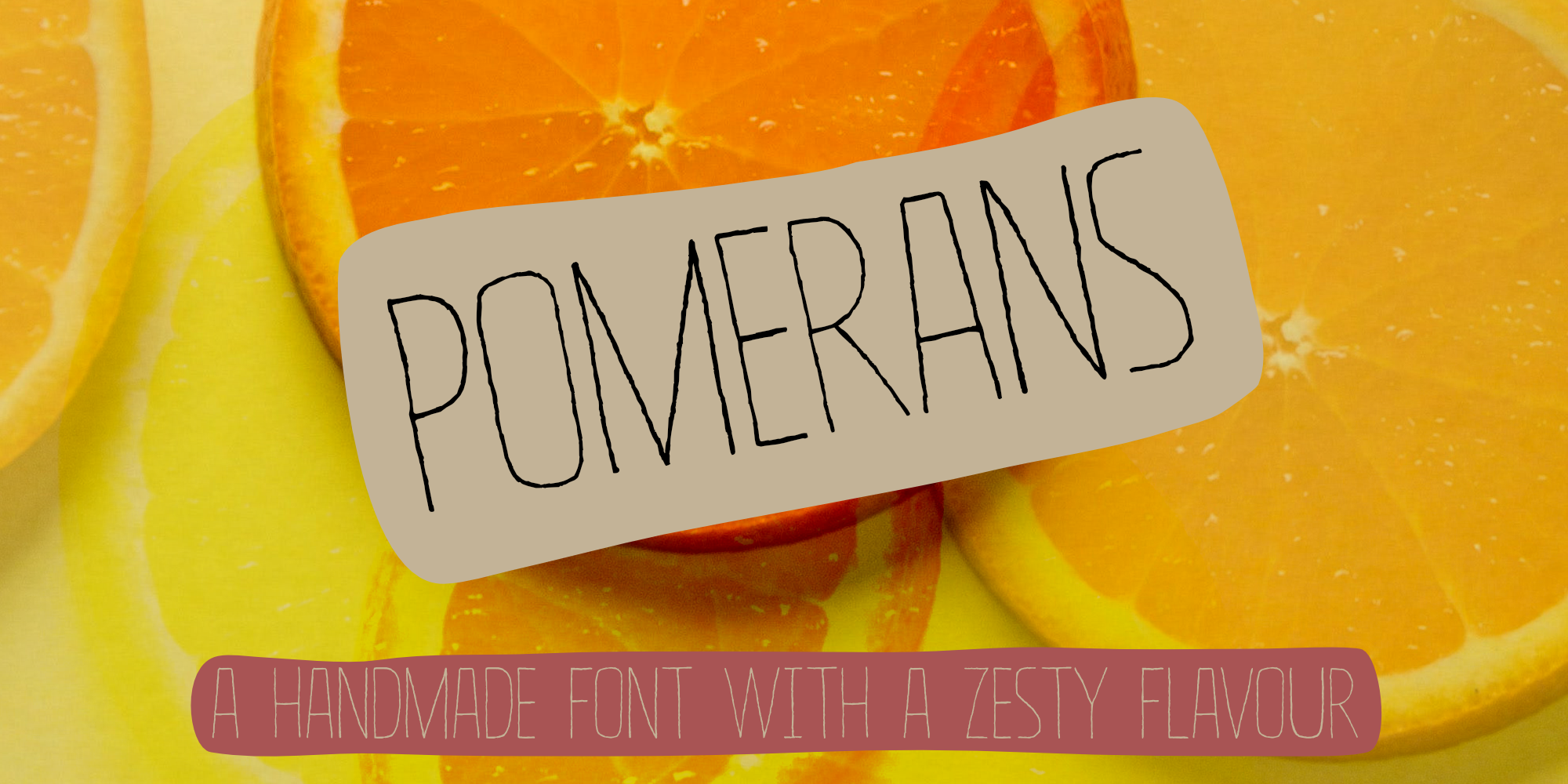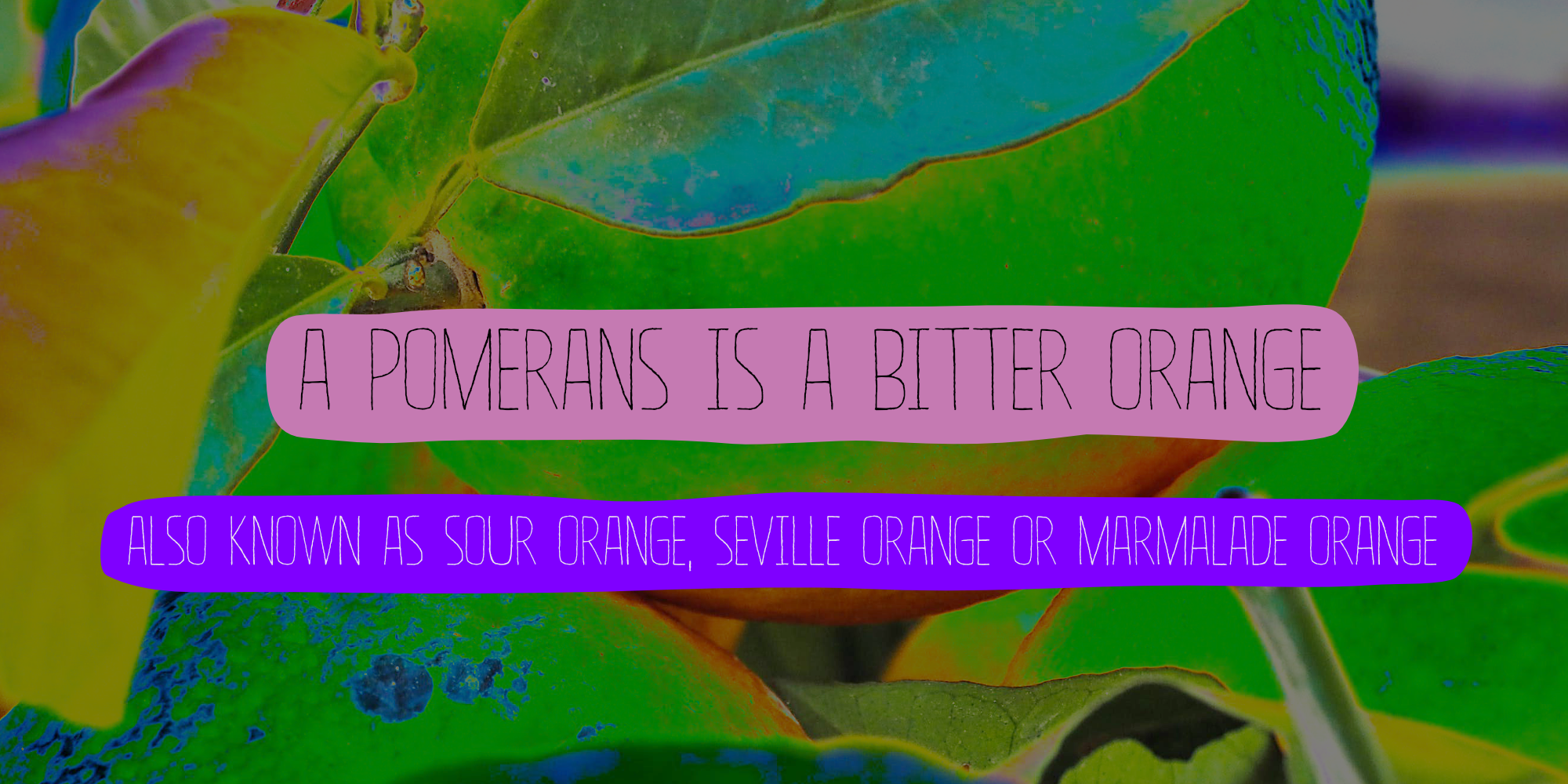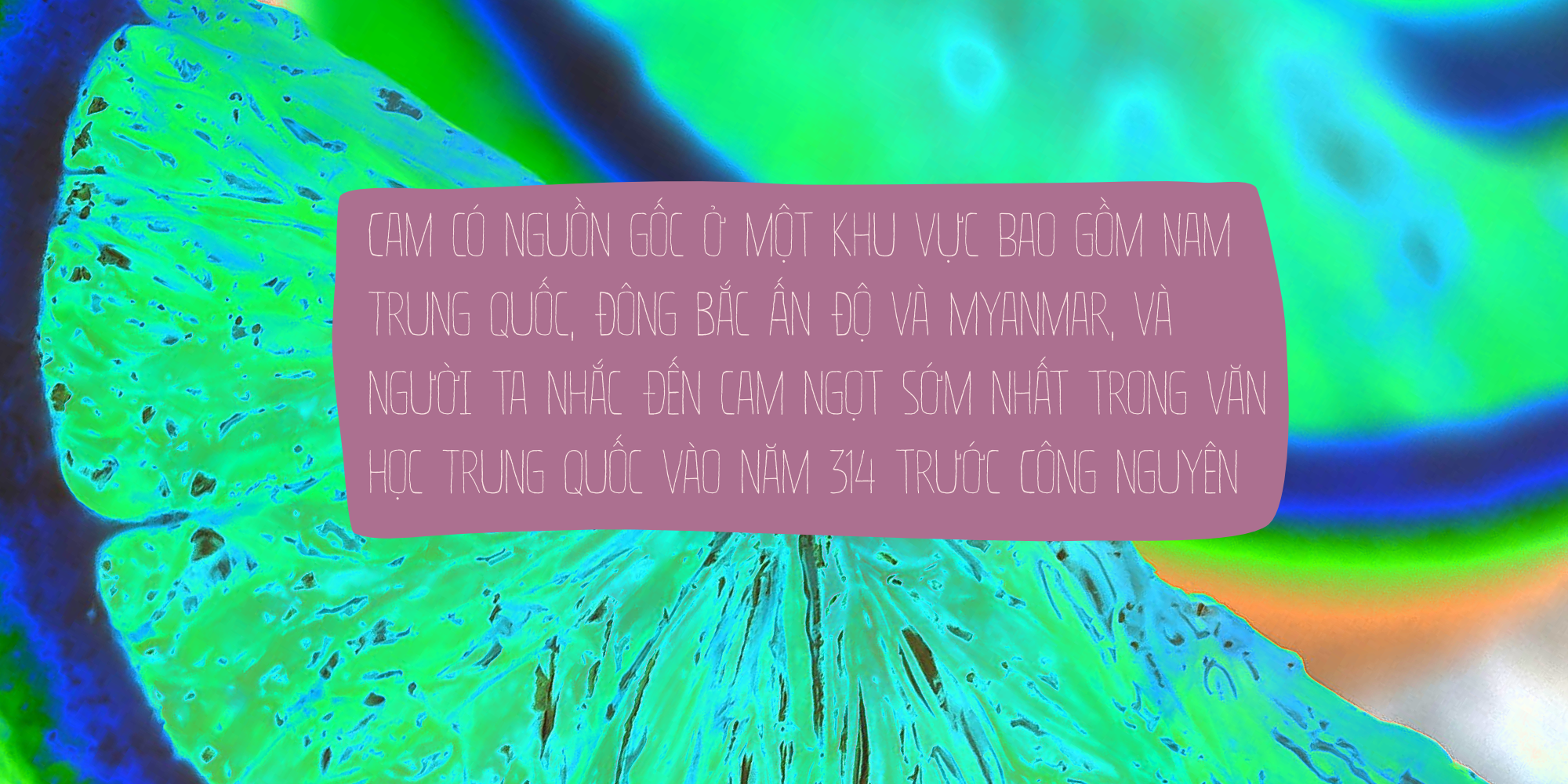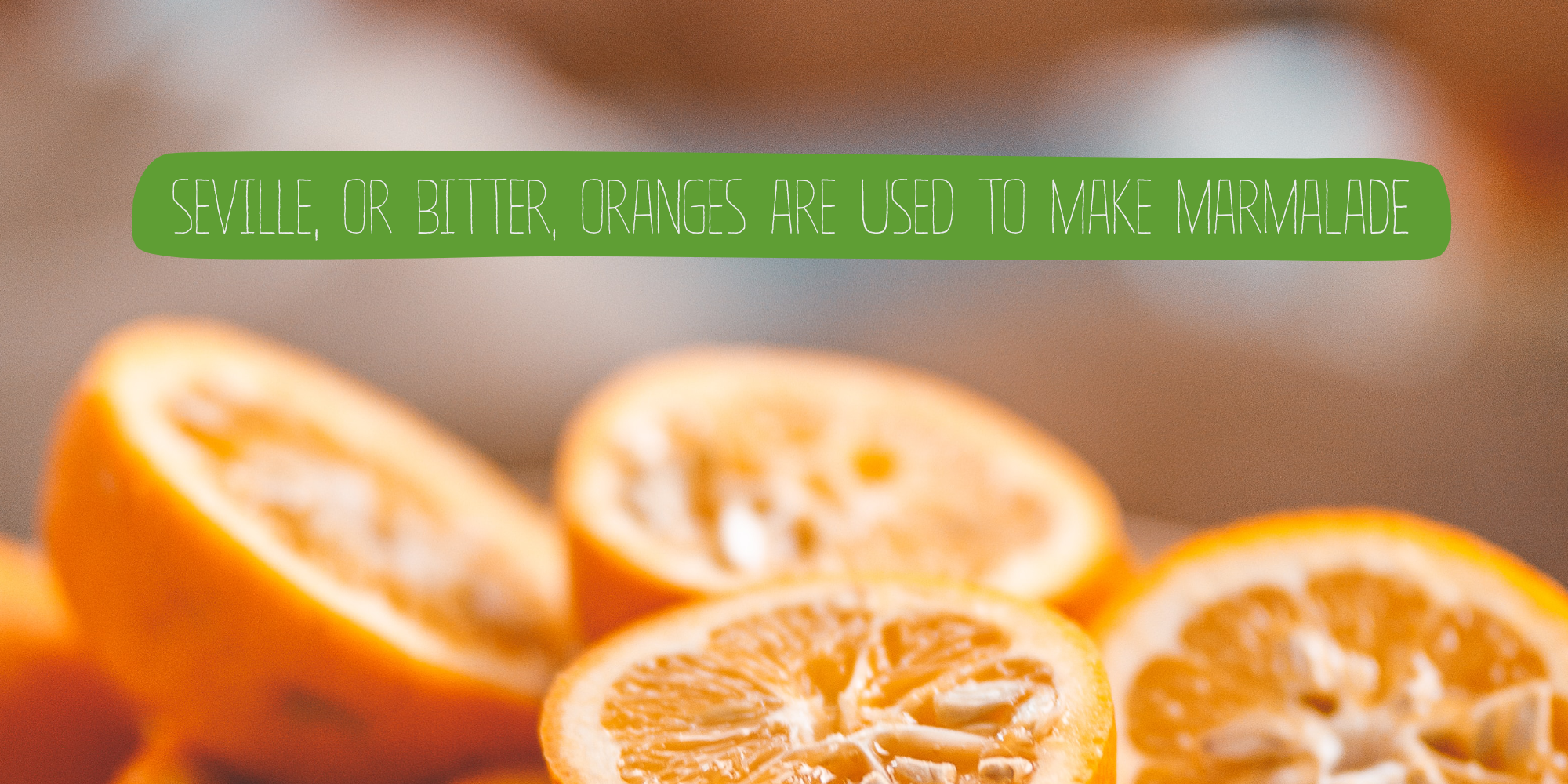
Pomerans (2 fonts)
Pomerans is a handmade, all caps font. I kept the look and feel of the original font, but I cleaned up the glyphs, added new glyphs and added additional language support (including Vietnamese and Sami).